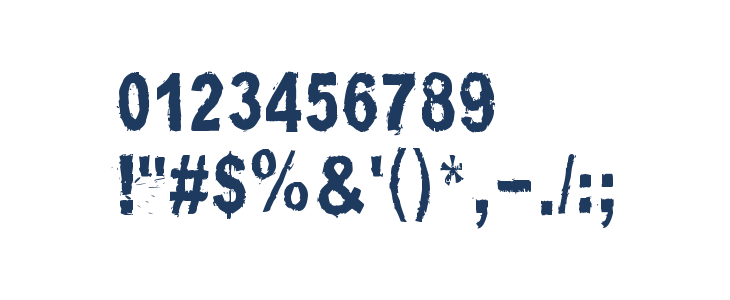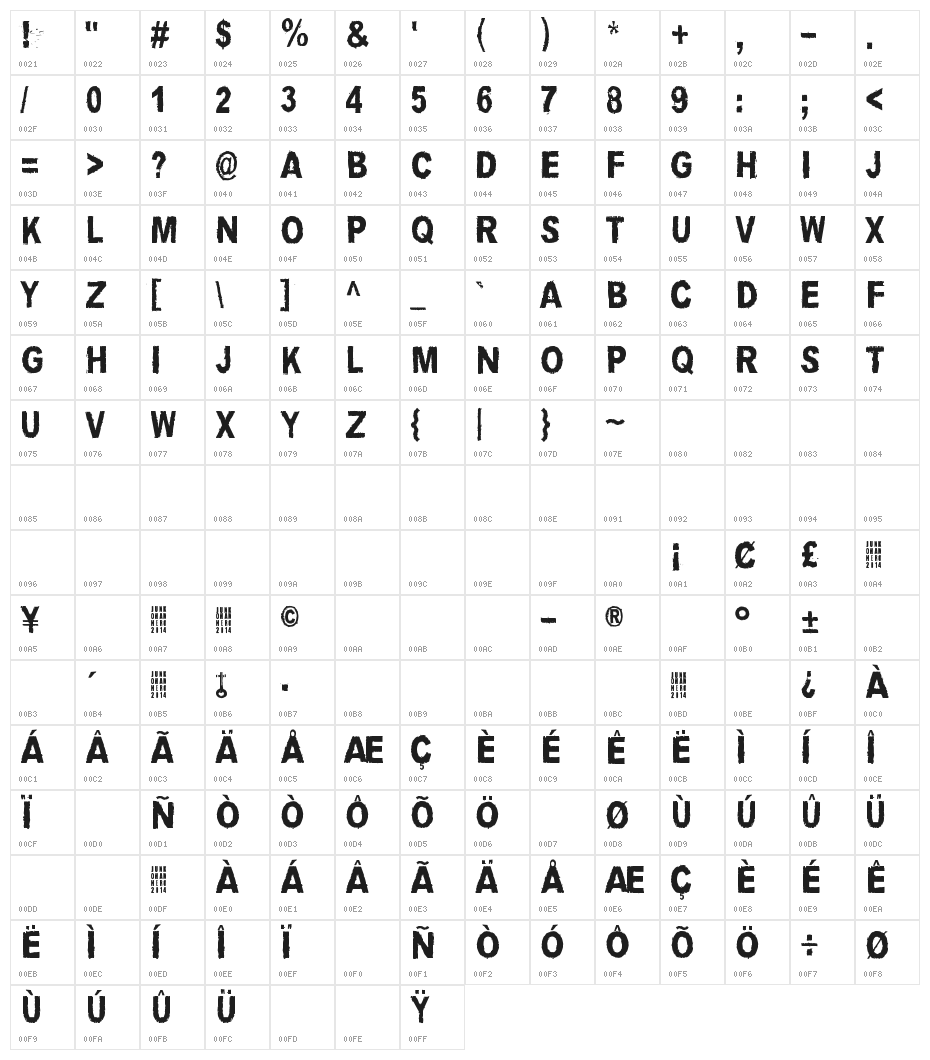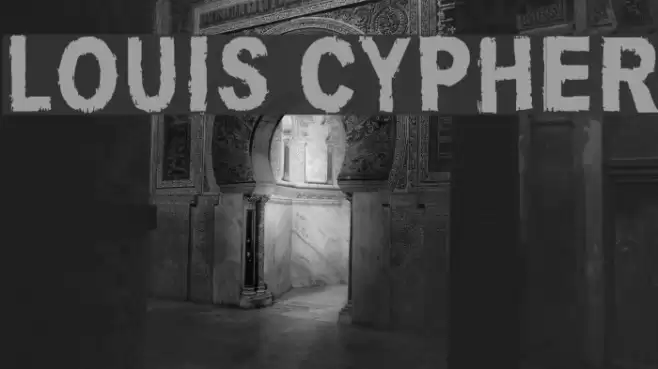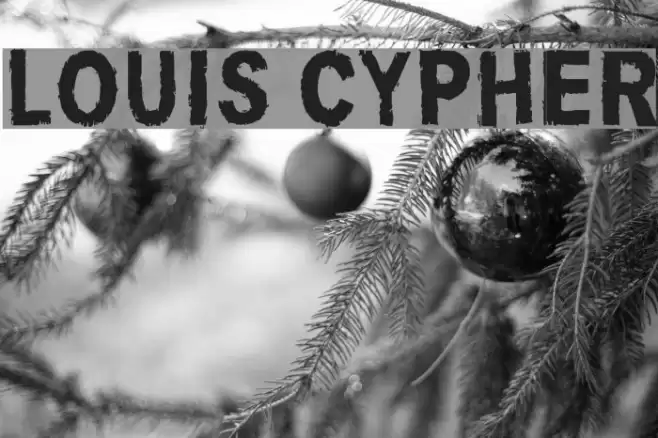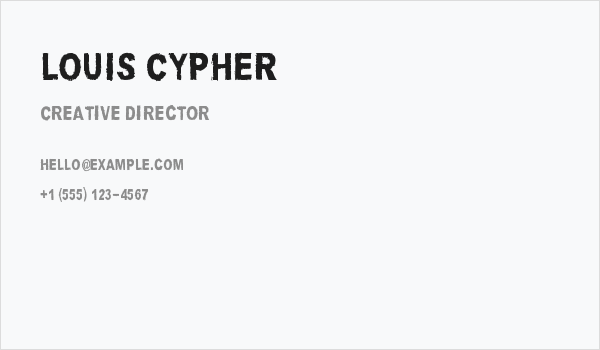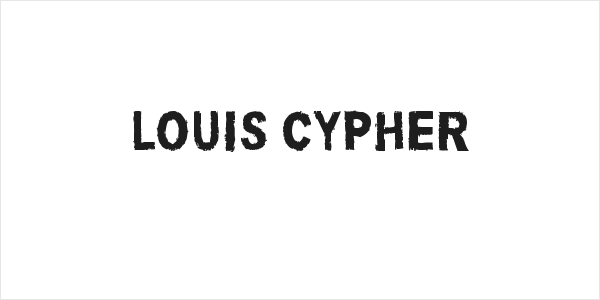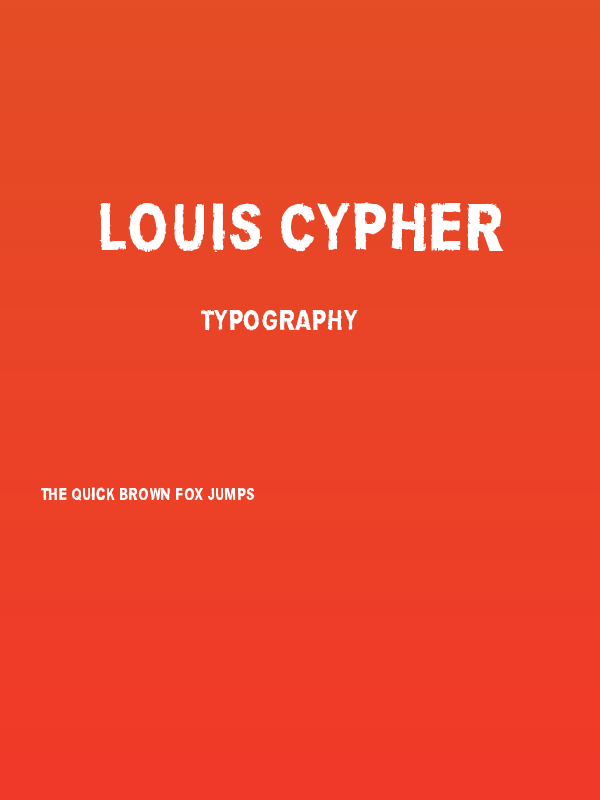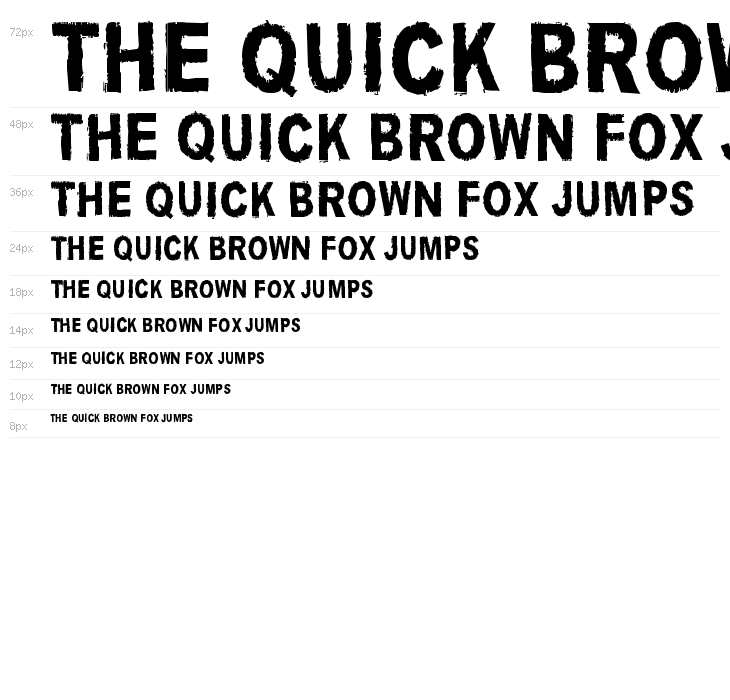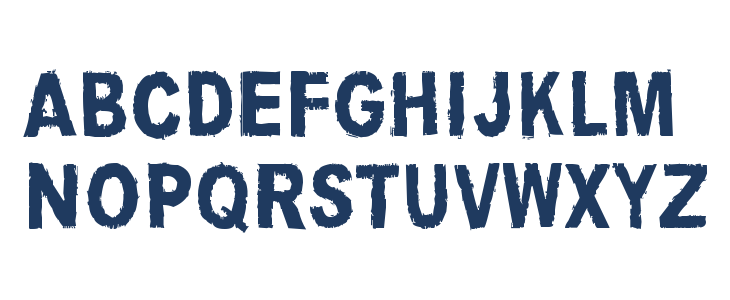
Louis Cypher Font
Louis Cypher Description
This font features a bold and distressed style, giving it a rugged and edgy appearance. The characters are heavily textured, with a rough, almost grunge-like finish that adds a sense of rawness and authenticity. The uppercase letters are prominent and impactful, making them ideal for attention-grabbing headlines or titles. The numbers and special characters maintain the same distressed aesthetic, ensuring consistency across all text elements. This font's unique style makes it stand out, offering a dynamic and unconventional look.
| Proposed Projects | Ideal for posters, album covers, branding for edgy products, or any design needing a bold, gritty aesthetic. |